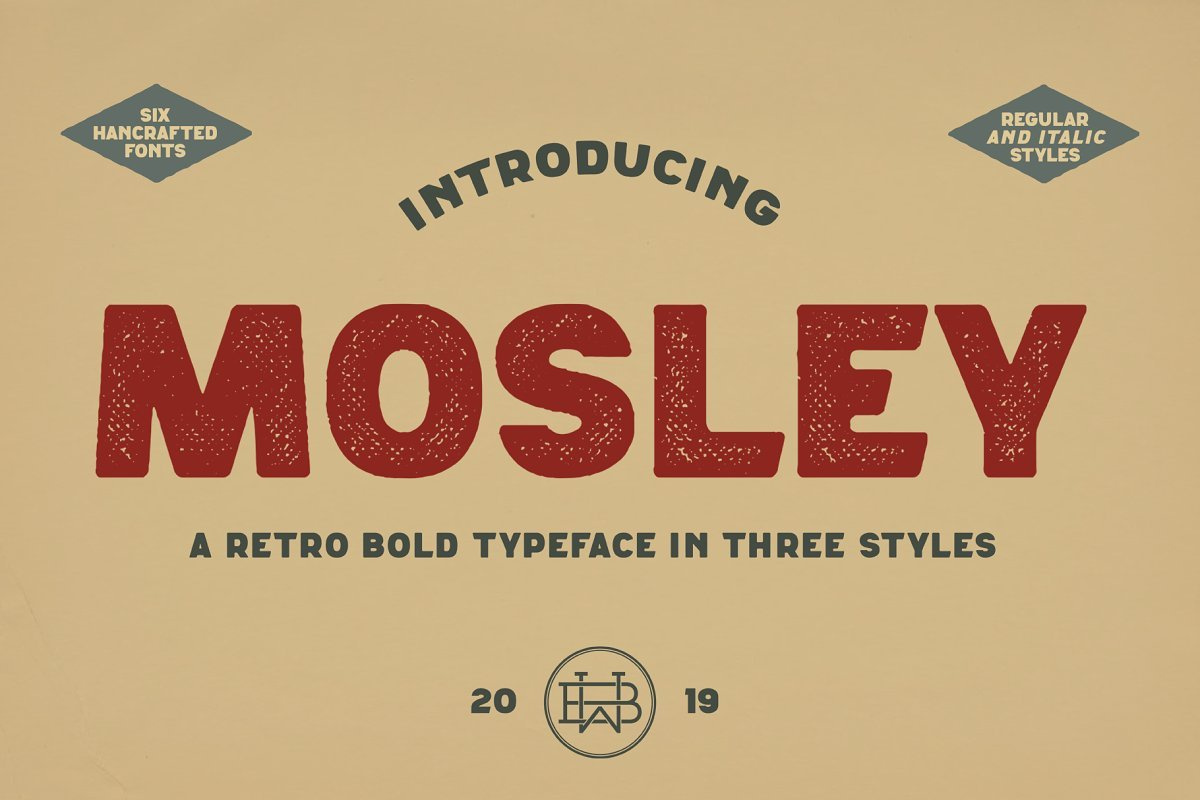
Mosley - Headline Font
Mosley is a bold, retro inspired typeface and it's great for headlines, logos, brandings, label, posters etc. Carefully handcrafted six styles give you many possibilities to use - Regular for modern designs, Rough and Print for vintage projects. Enjoy!
Mosley Regular
Mosley Rough
Mosley Print